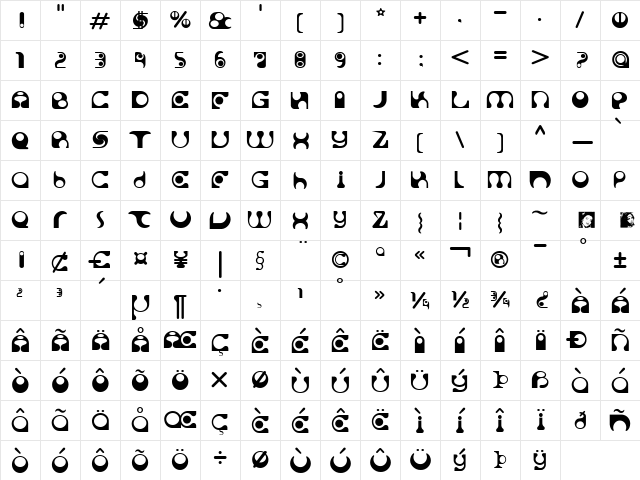
Solange Regular
| Designer | Owen Turley |
Design Context for Solange Typeface
Solange is a composed and adaptable typeface that performs quietly and consistently across a wide range of design contexts.